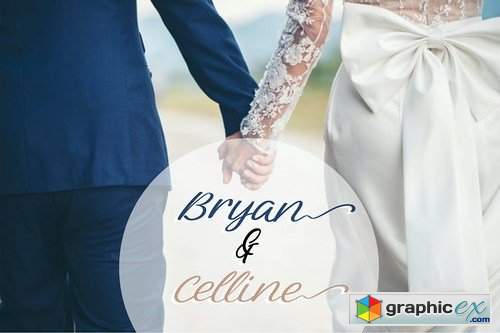
Meryline Modern Calligraphy
Meryline | Modern Calligraphy with a calligraphy style, So beautiful on invitation like greeting cards, branding materials, business cards, quotes, posters, and more!